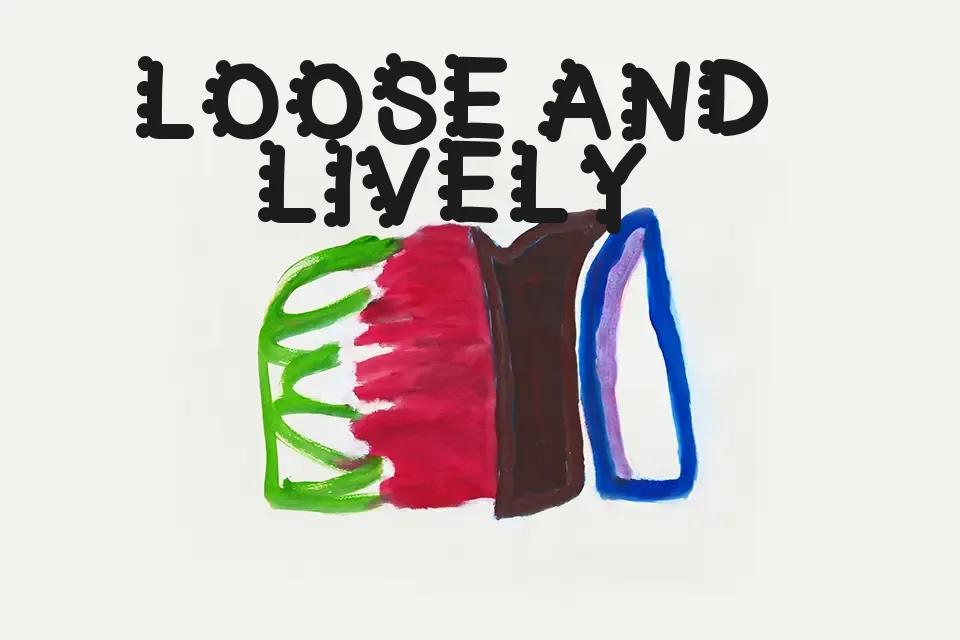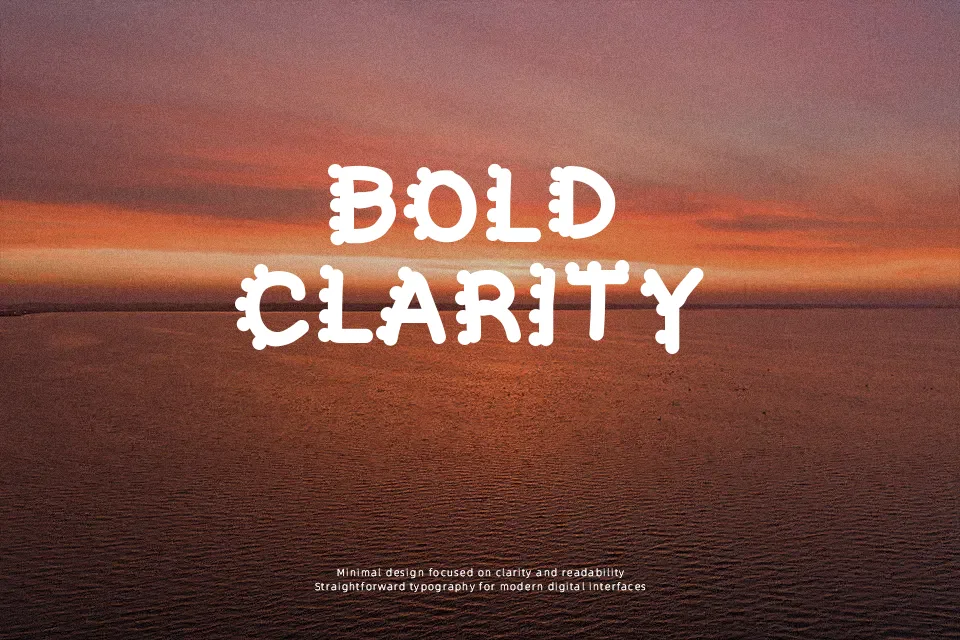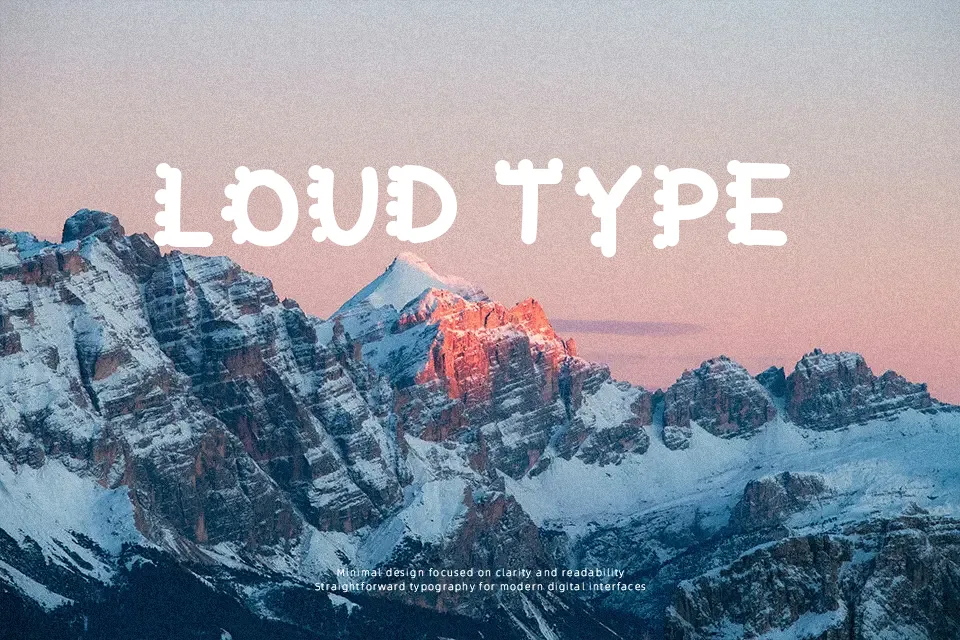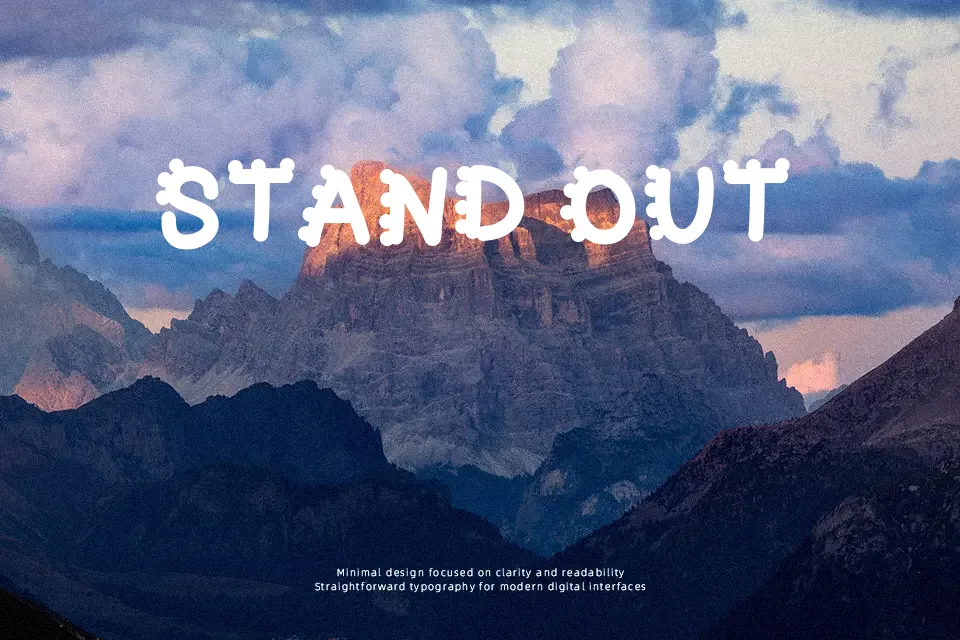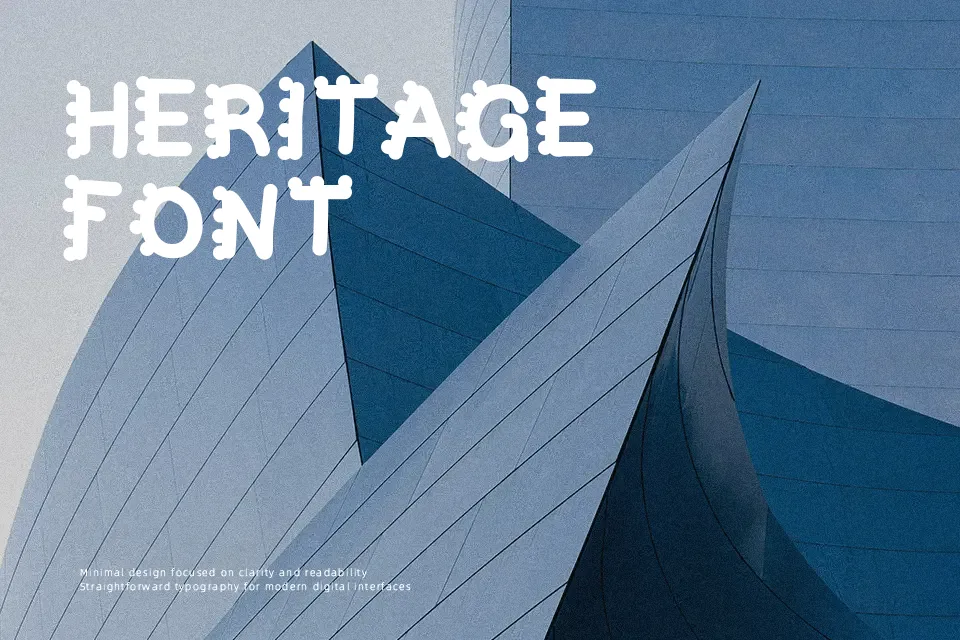
Bubblefont Font
Designed by Gaelleing
Bubblefont Font features chubby, rounded strokes with generous curves and relatively even weight, giving each letter a soft, balloon-like silhouette that reads as fun and approachable rather than slick or corporate. Spacing is fairly open, so short words and titles breathe nicely, but dense paragraphs can look crowded. The overall impression leans decorative and casual, with a handmade charm that suits child-focused themes, snacks, and cute product labels. It works well when you need a bold, friendly headline that feels playful without becoming chaotic. For longer editorial text or serious, high-end branding, its bubbly shapes can quickly feel out of place and reduce legibility at smaller sizes.
Kids product packaging and labels
Candy, bakery, or dessert branding
Playful event posters and flyers
Cute social media title graphics
Long paragraphs or body copy
Formal or corporate branding systems
Very small-size UI text
Serious editorial layouts
Perfect for branding, logo, and packaging, with a artistic and decorative style.